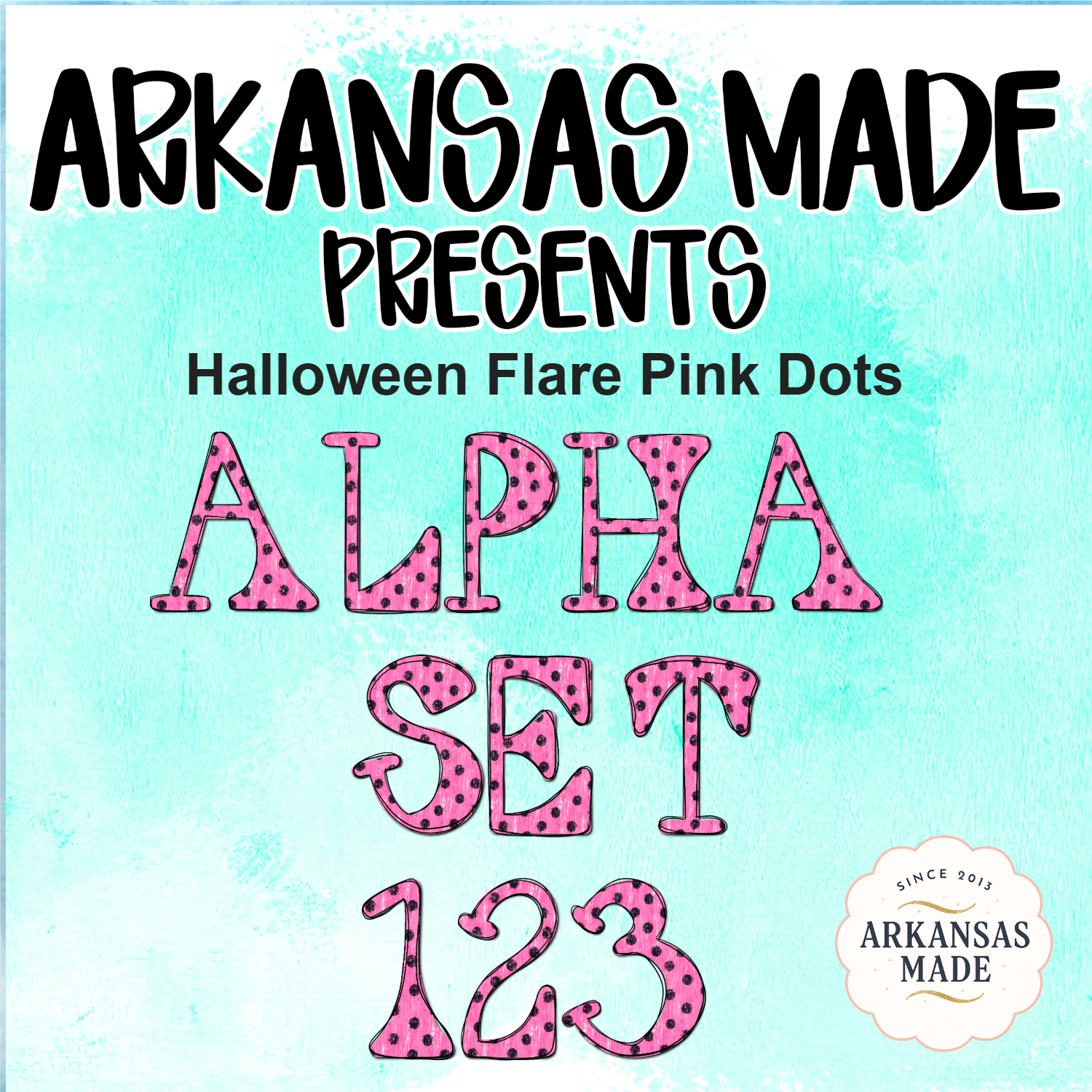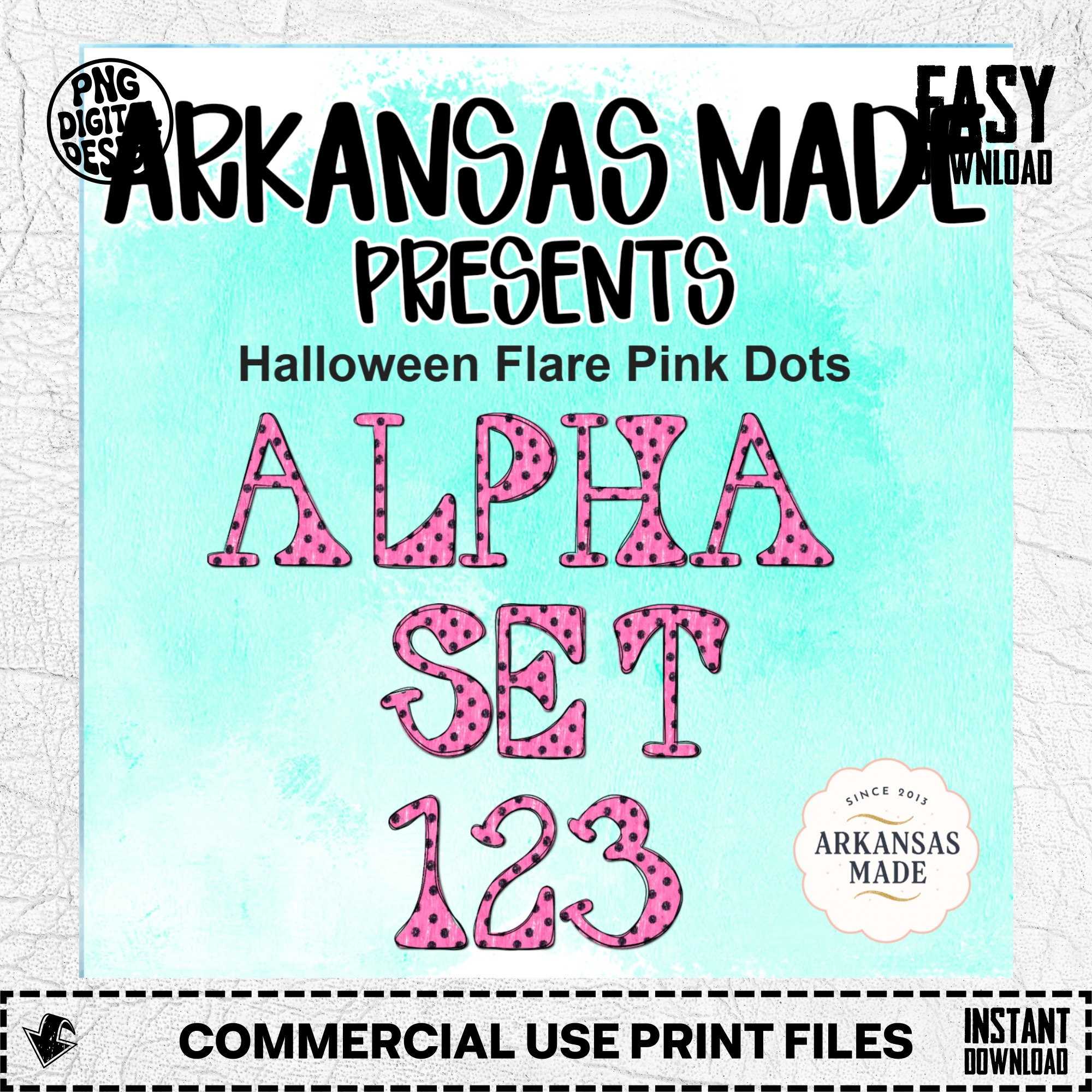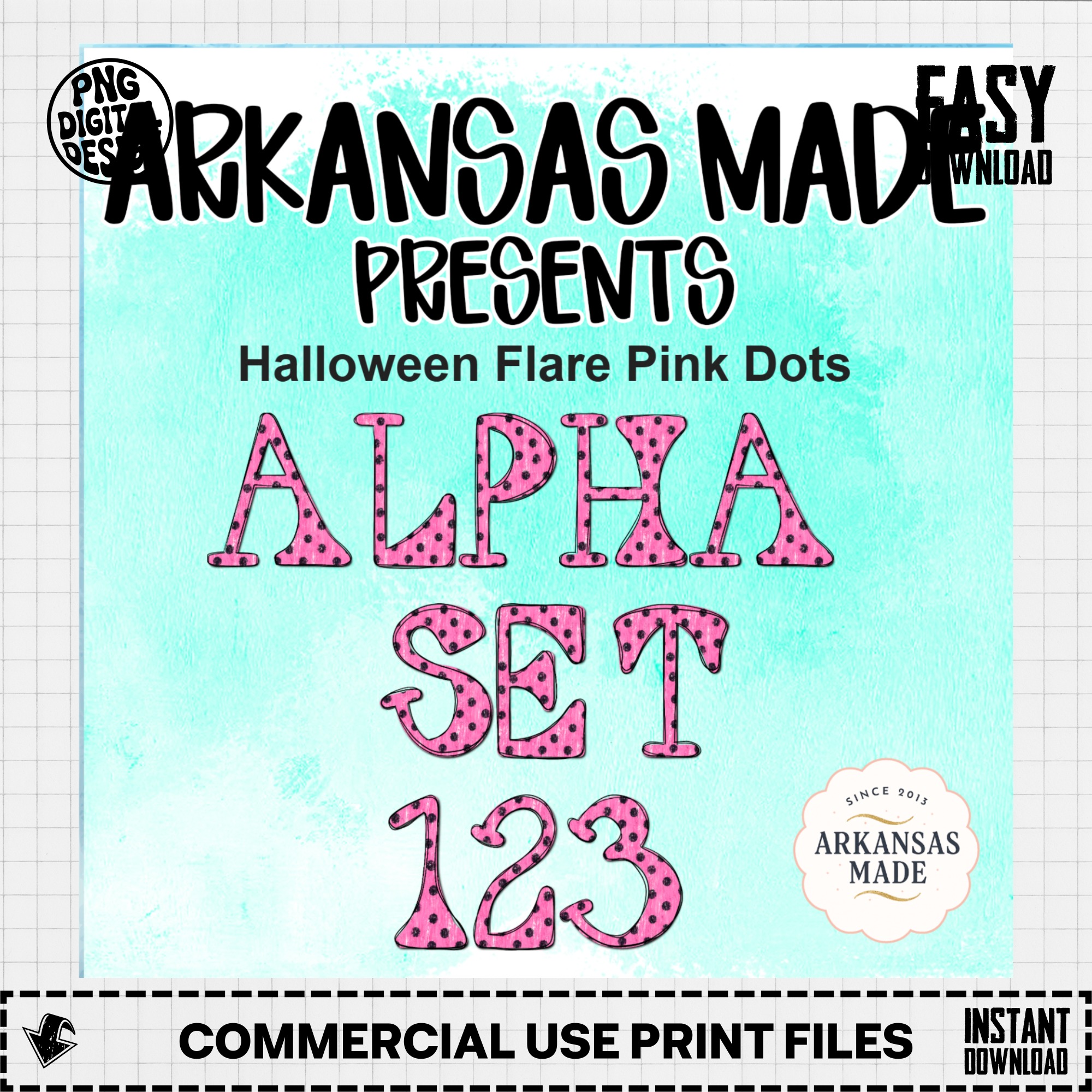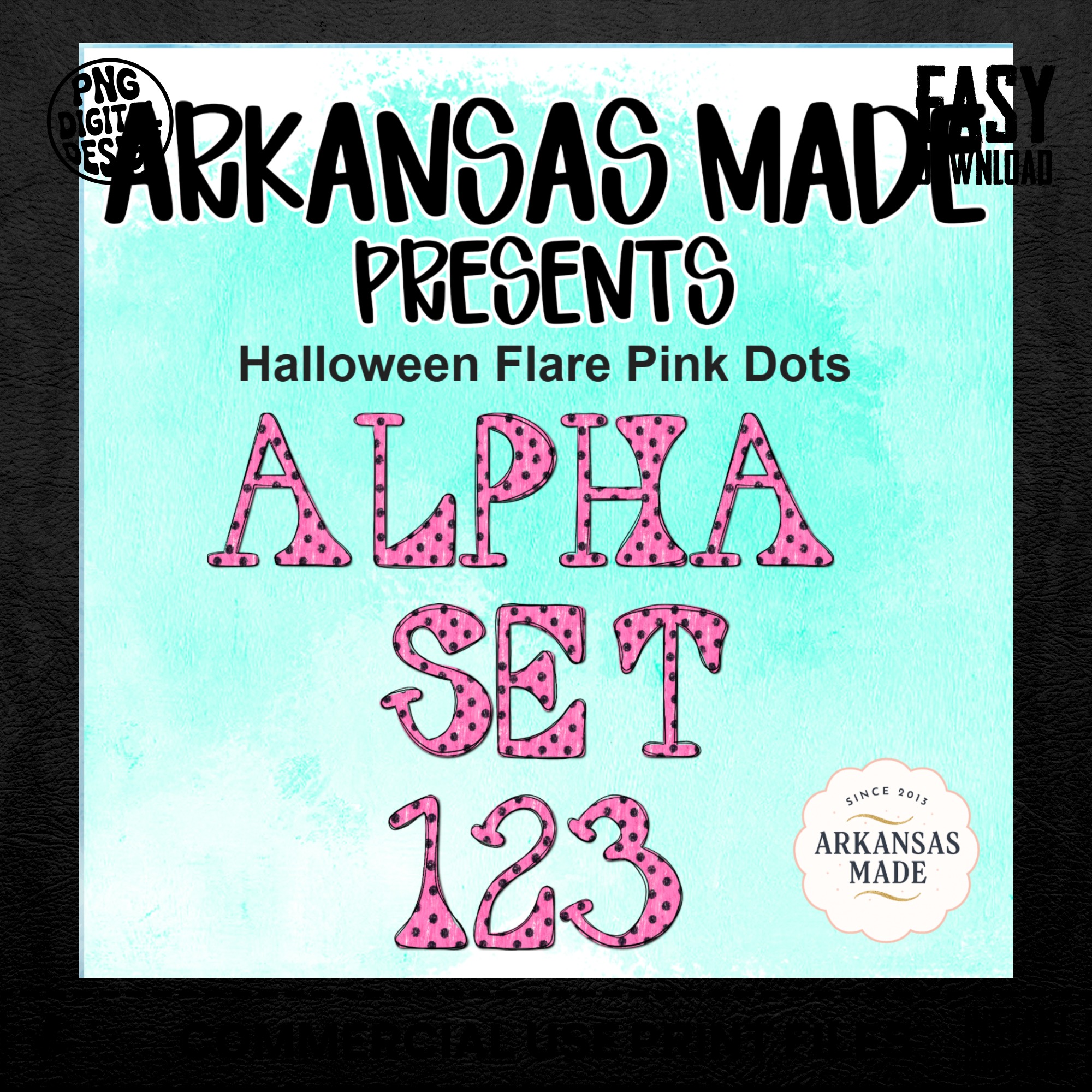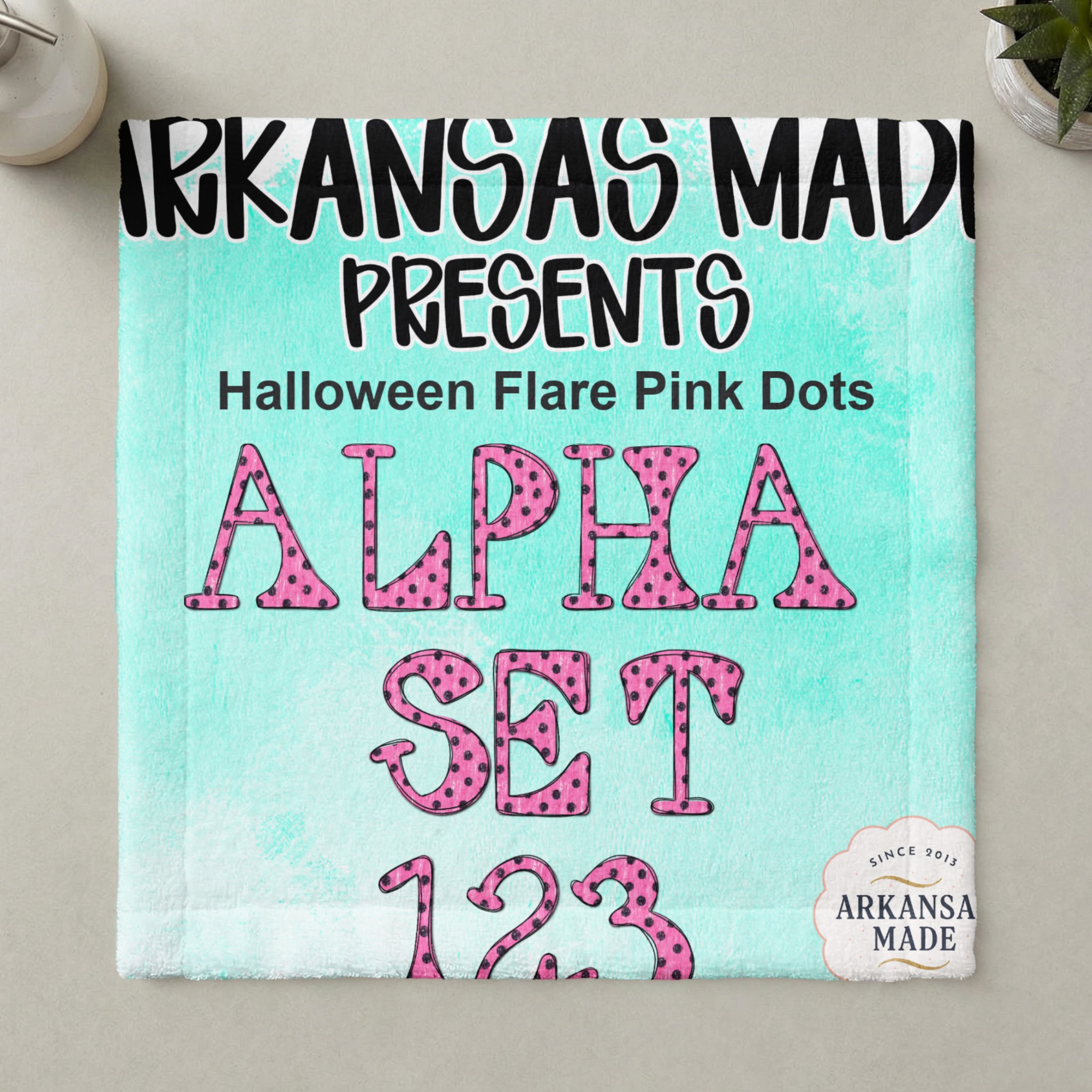
Halloween Flare Pink Dots Alpha Set 123 Digital Alpha PNGs | Cute Halloween Letters Numbers Doodle Font Craft Supply
Halloween Flare Pink Dots Alpha Set 123 Digital Alpha PNGs are perfect for adding a spooky cute touch to all your DIY projects and creative designs! Featuring whimsical pink characters with charming black polka dots, this unique alphabet and numbers set is ideal for crafters, small business owners, and teachers creating personalized Halloween goods. Unleash your creativity with this versatile digital download, perfect for designing invitations, party decor, apparel, or festive classroom materials.